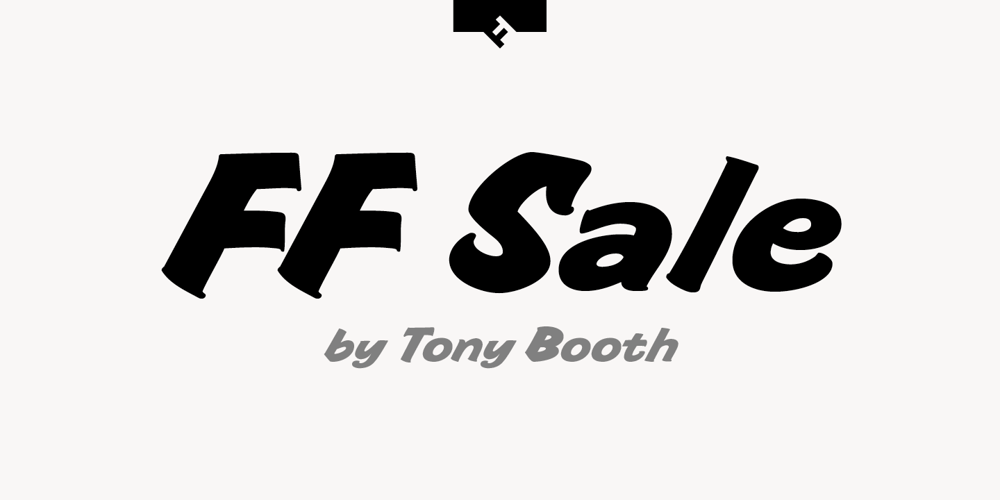
FF Sale Font Family was designed by Tony Booth and published by FontFont. FF Sale contains 4 styles and family package options. British type designer Tony Booth created this script FontFont in 1996. The family contains 4 weights: Light Italic, Regular, Medium Italic, and Bold Italic and is ideally suited for advertising and packaging and poster and billboards. FF Sale provides advanced typographical support with features such as ligatures, alternate characters, and case-sensitive forms. It comes with proportional lining and tabular lining figures.